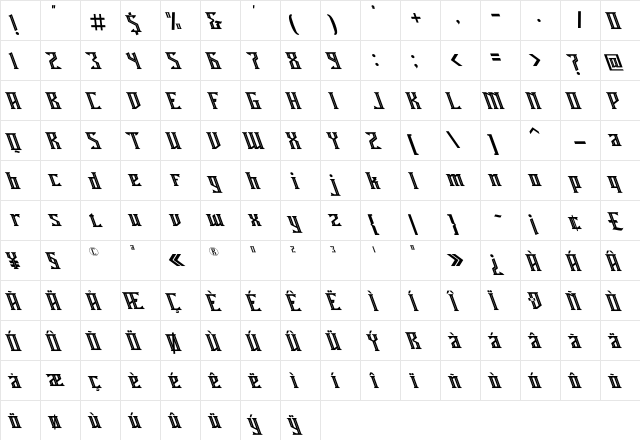
Miles Hunt Oblique Regular
Design Context for Miles Hunt Oblique Typeface
Miles Hunt Oblique is a composed and adaptable typeface that performs quietly and consistently across a wide range of design contexts. Its italic angle brings a sense of urgency and motion to the letterforms.
Pro Tip: Try Miles Hunt Oblique for annotation and caption copy alongside an upright companion — the contrast in angle creates a dynamic but ordered typographic system.